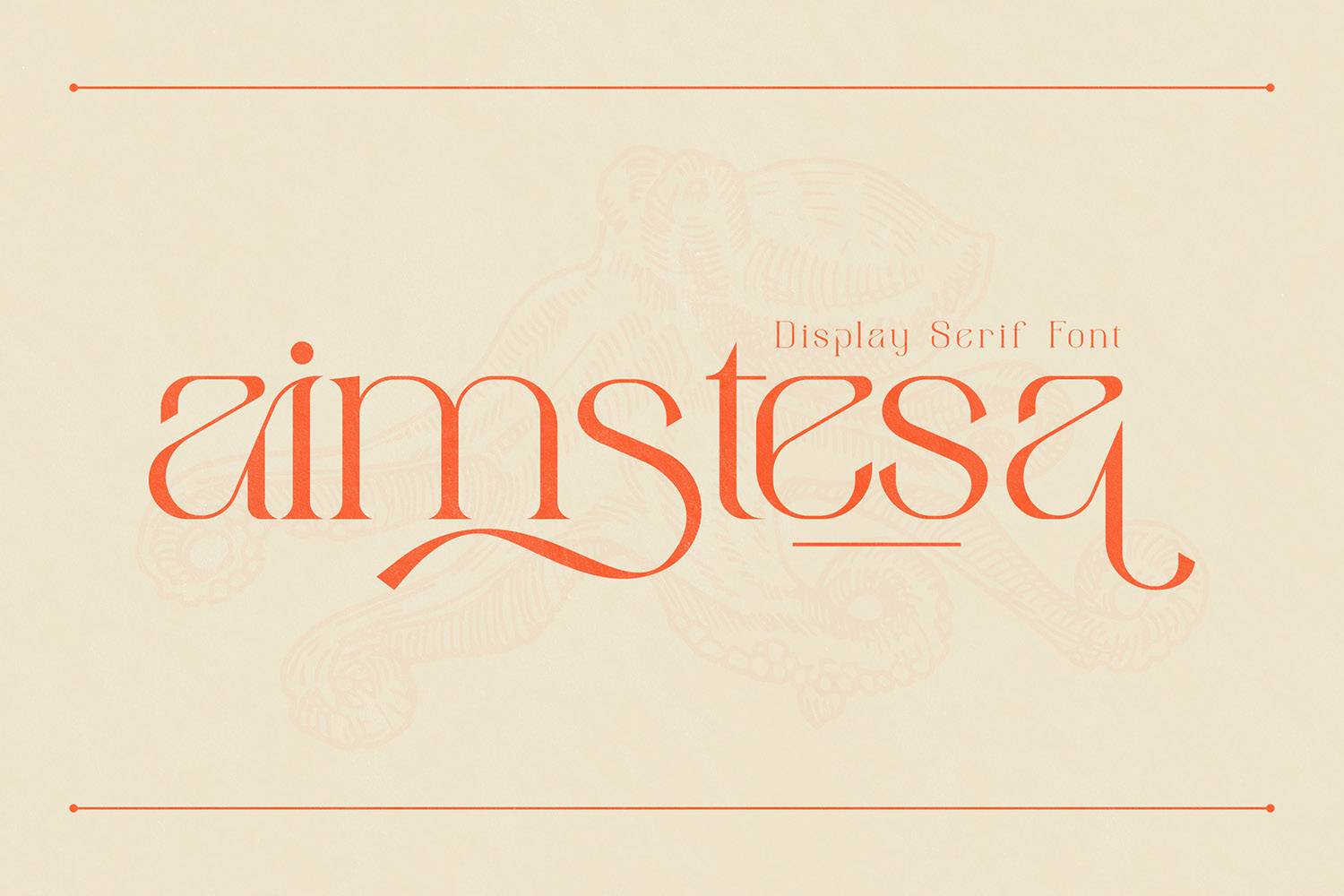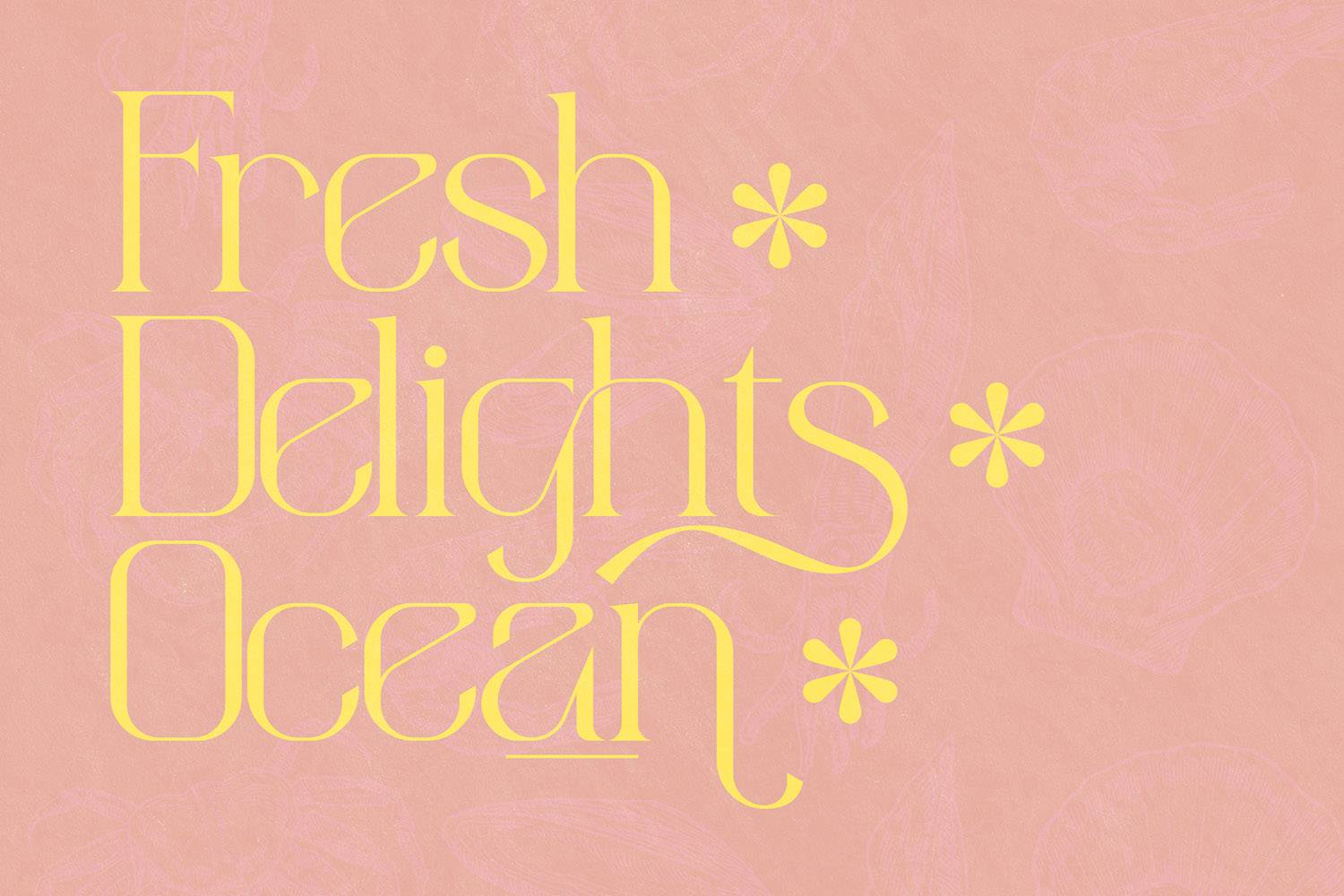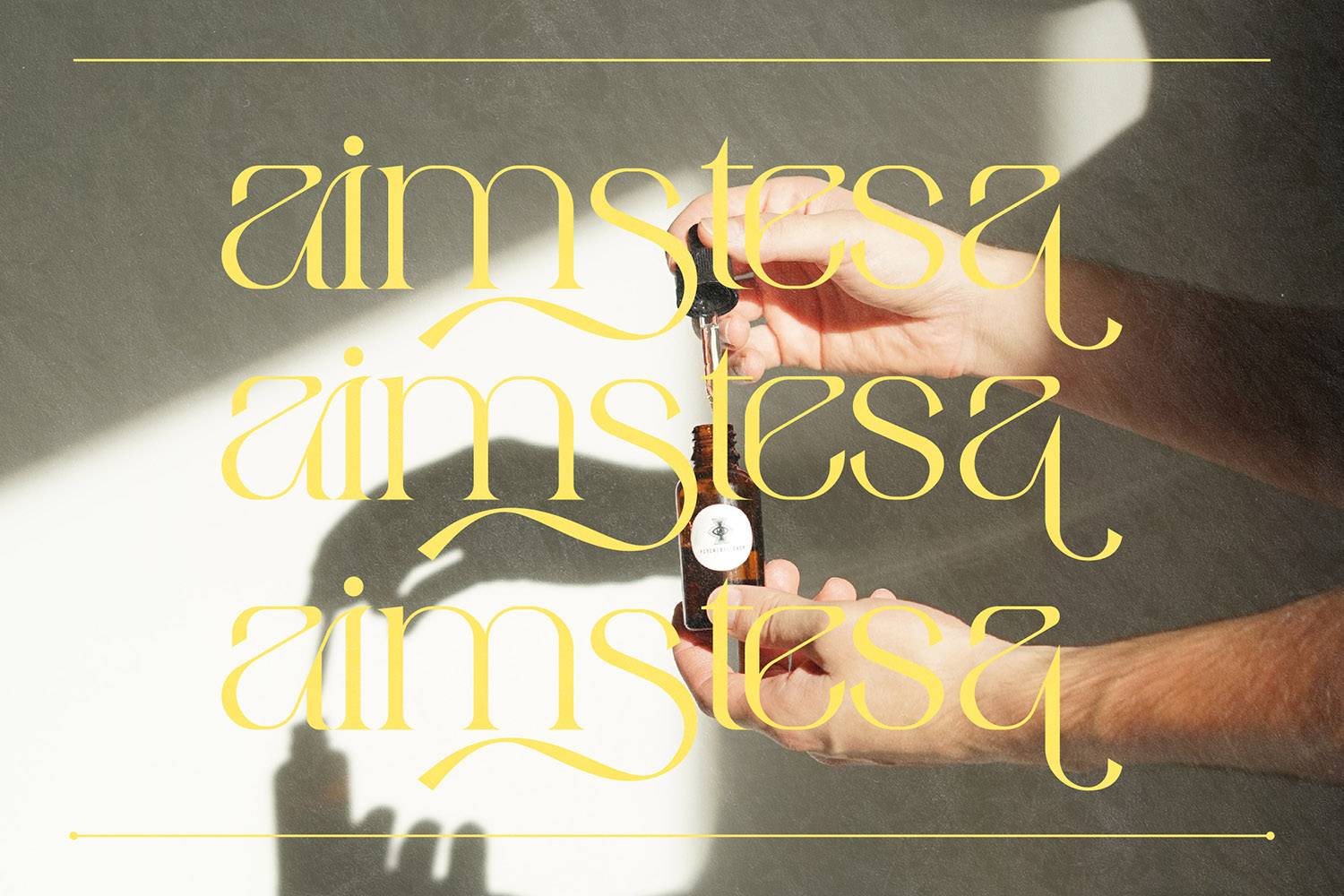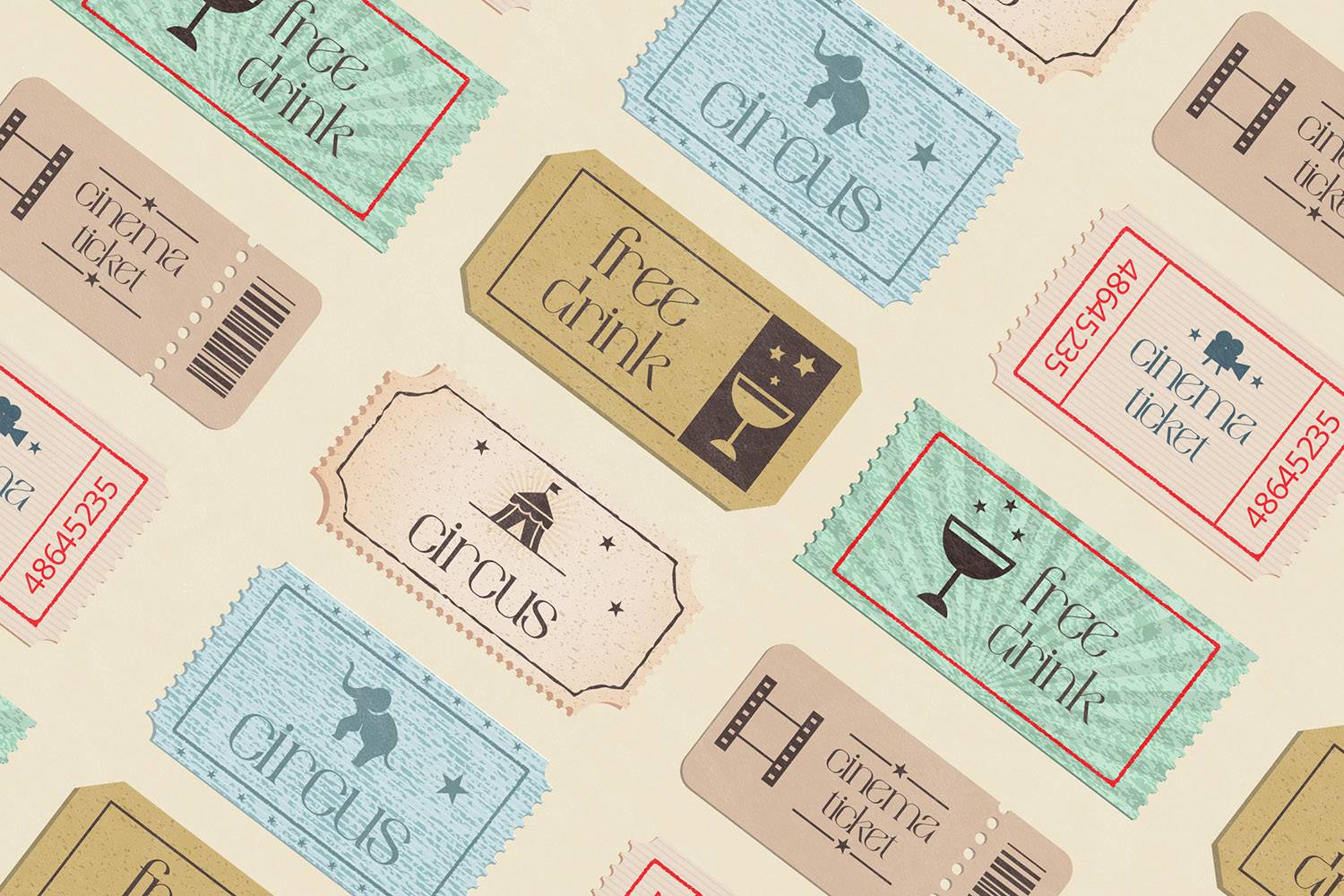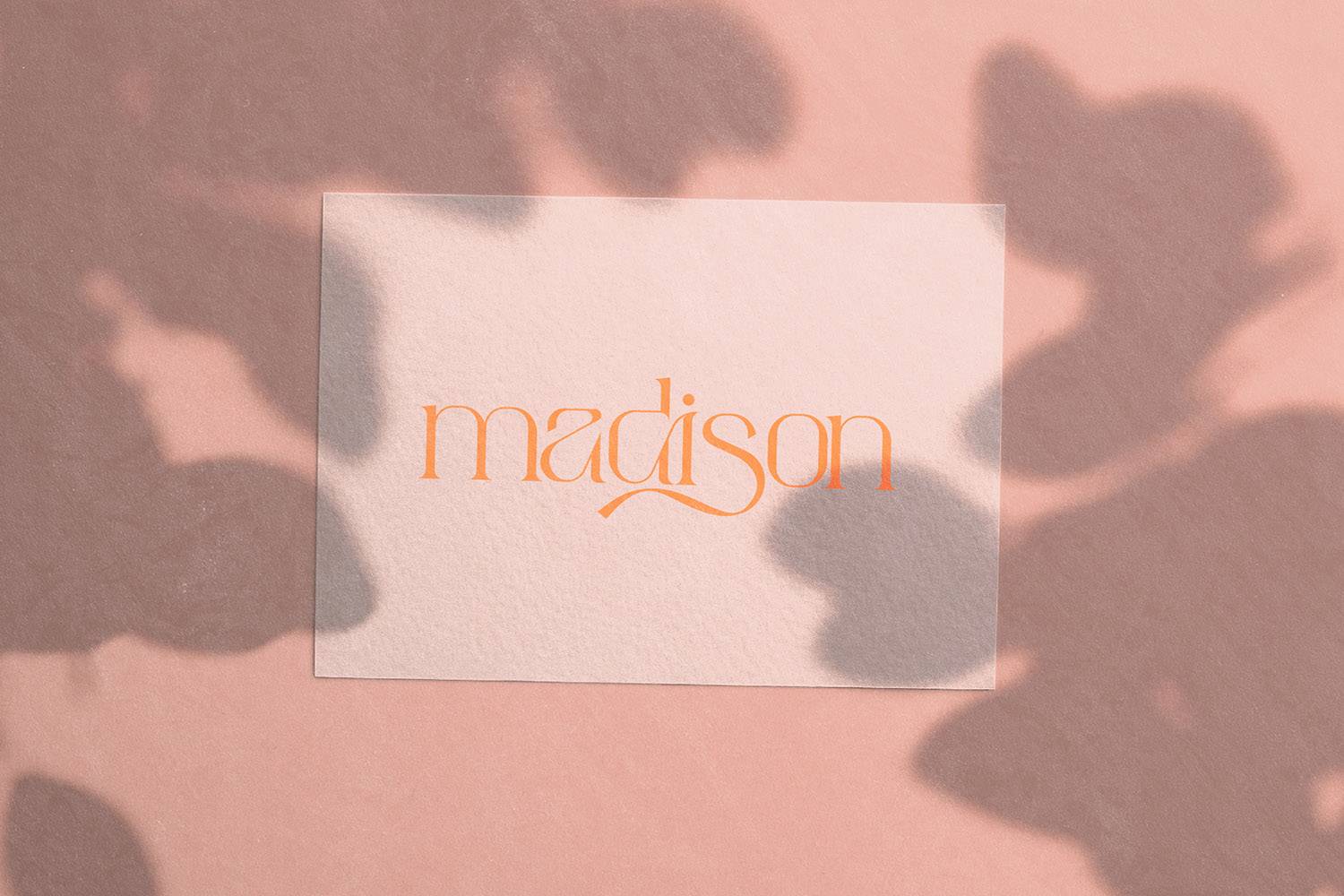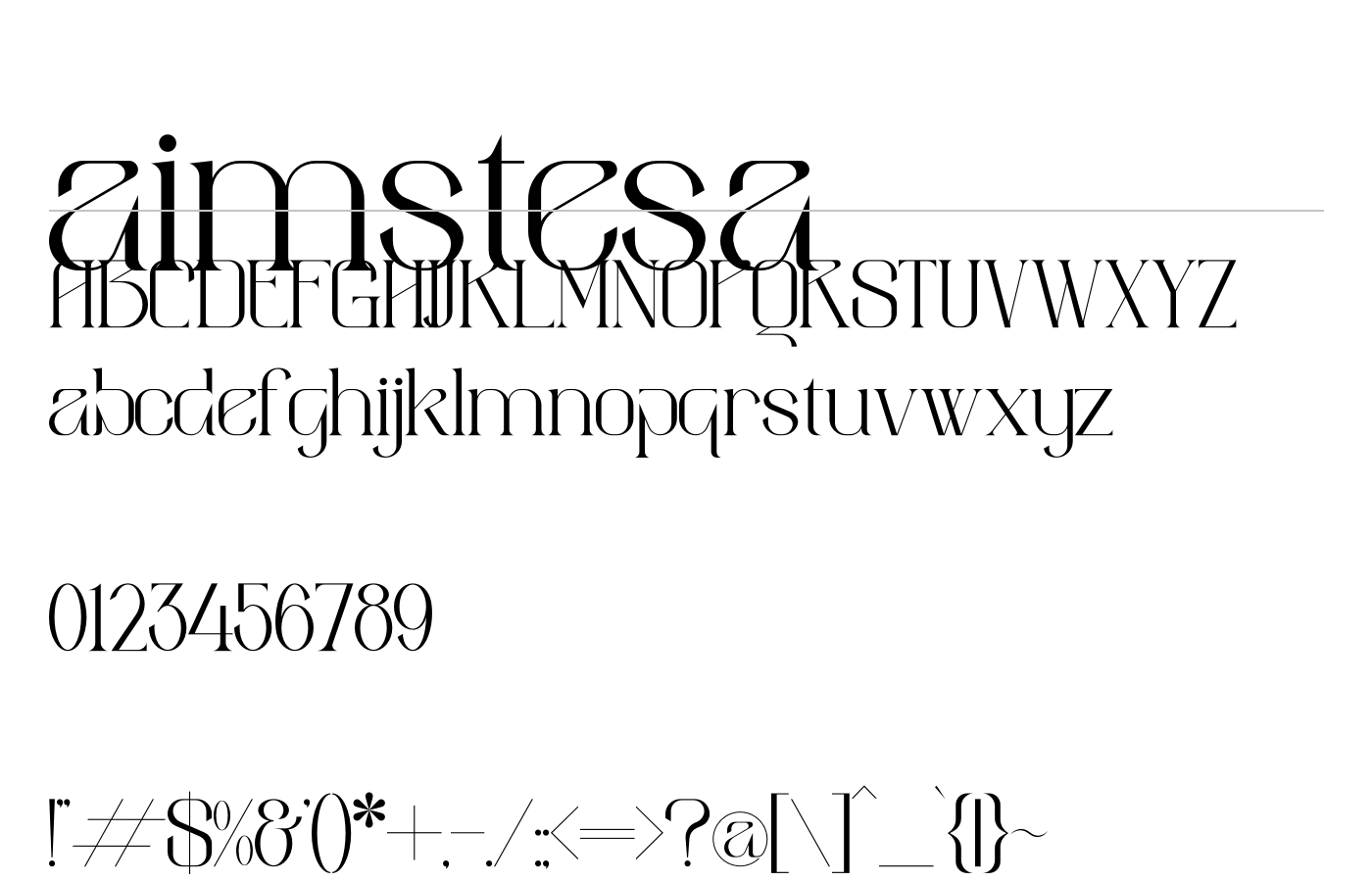
Aimstesa is a stylish serif font featuring an elegant high-contrast design with thin, elongated letterforms and sharp, slender serifs. Its refined and sophisticated appearance, combined with unique details like a double-story 'a' and fluid curves, makes it ideal for luxury branding, fashion editorials, and upscale headlines where a modern yet classic aesthetic is desired. This font brings a timeless, graceful mood that suits projects seeking a blend of delicacy and strong visual impact.
Aimstesa Font
About Aimstesa Font